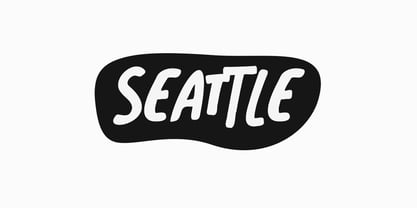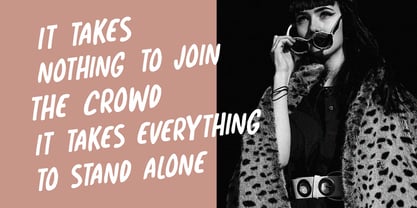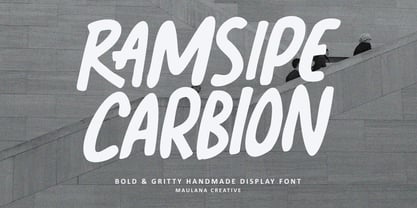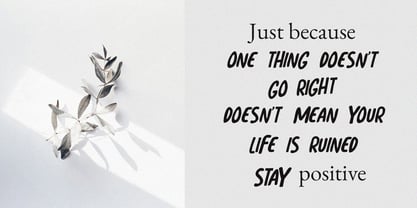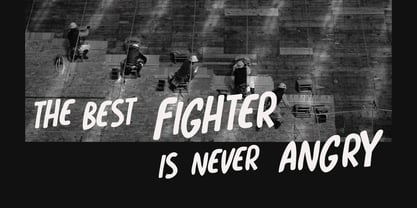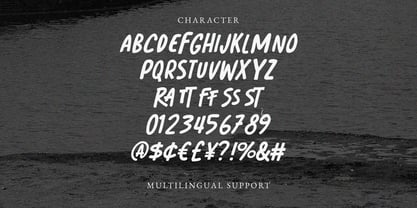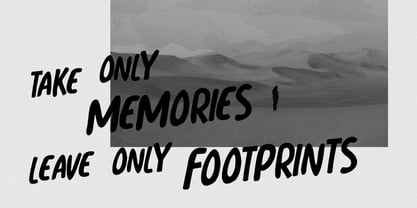
MC Ramsipe Carbion
par Maulana Creative
La famille de polices MC Ramsipe Carbion a été conçue par Gilang Maulana et publiée par Maulana Creative. MC Ramsipe Carbion contient 1 styles. En savoir plus sur cette famille
Ramsipe Carbion is a high impact, handmade display font designed to bring raw energy and authentic character to your creative projects. Crafted by Maulana Creative, this typeface features thick, expressive brushstrokes and a natural "marker" feel that bridges the gap between urban street art and contemporary graphic design. Its bold weight and slightly irregular edges give it a powerful, human touch that stands out against clean digital layouts. Whether you are designing edgy eye-catching social media, or high-energy sports branding, Ramsipe Carbion delivers a loud and unmistakable message. Key Features: - Authentic Handmade Texture: Maintains the organic flow of manual lettering. - Maximum Readability: Despite its gritty style, the letterforms remain clear and punchy. - Versatile Application: Perfect for headlines, logos, and bold advertising.